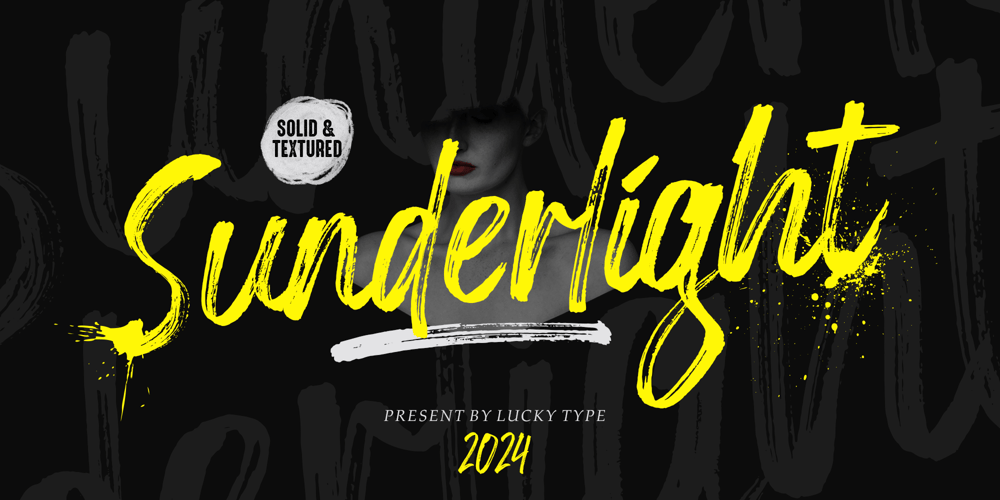
Sunderlight
Sunderlight font
Sunderlight Font Family was designed by Muhammad Fajar and published by Lucky Type. Sunderlight contains 4 styles and family package options. Sunderlight is an excellent hand-brushed font that emphasizes texture and interesting style. Sunderlight will fit perfectly into your next great design, from attention-grabbing posters to eye-catching social media graphics and beyond. Sunderlight will easily adapt to different design contexts because it has two different versions, namely Sunderlight Textured and Sunderlight Solid. It also has several swashes that will beautify your design.Thank you very much.